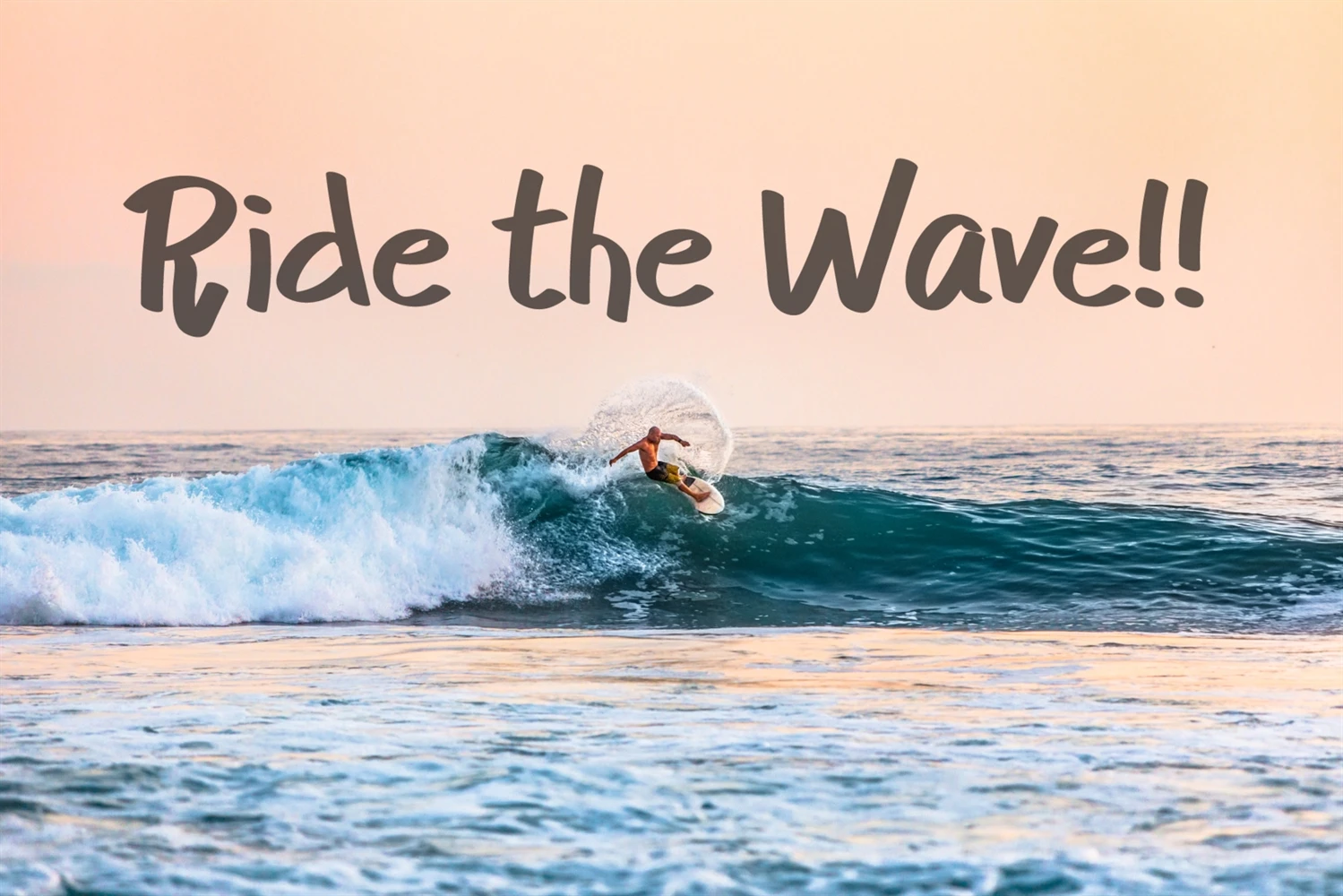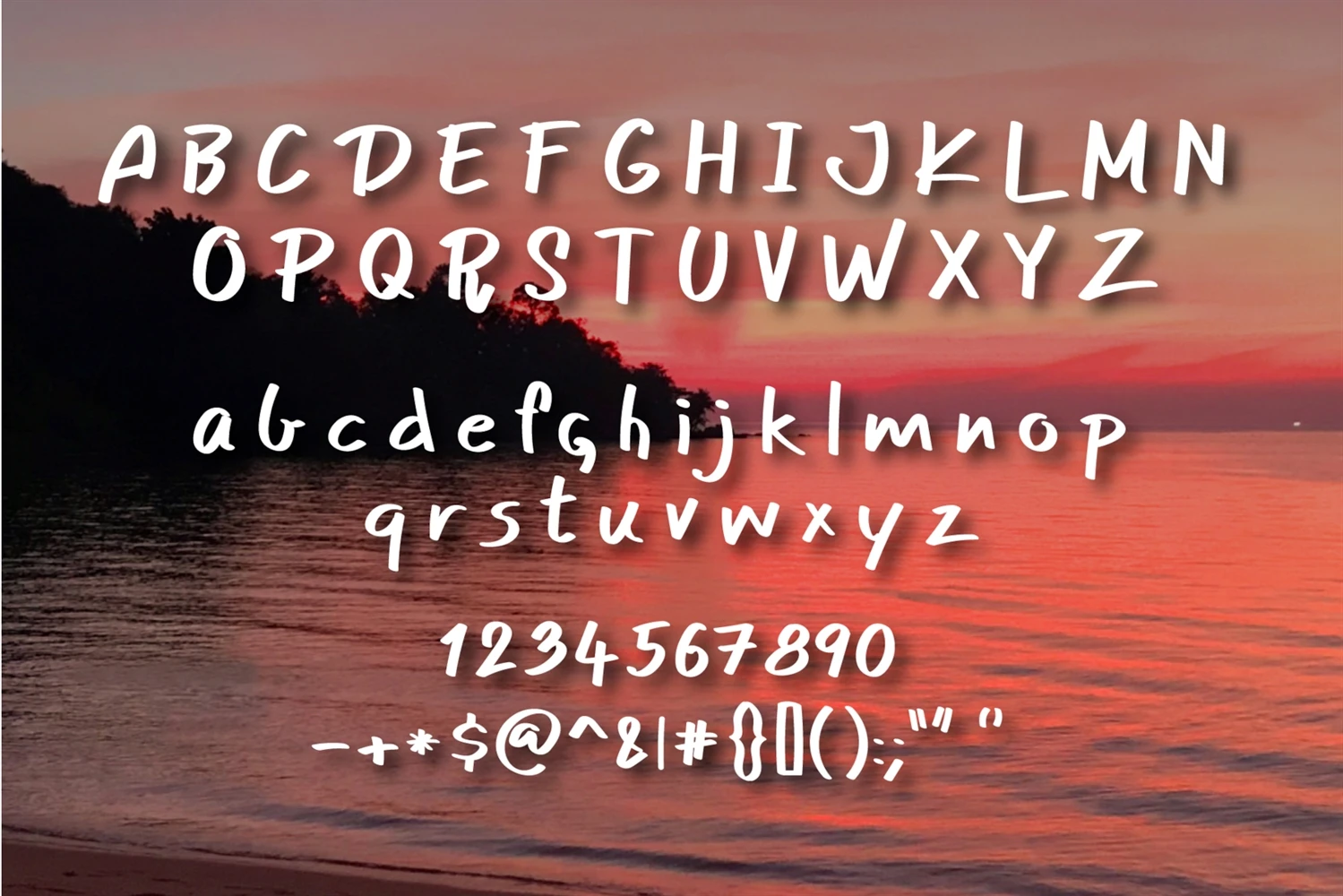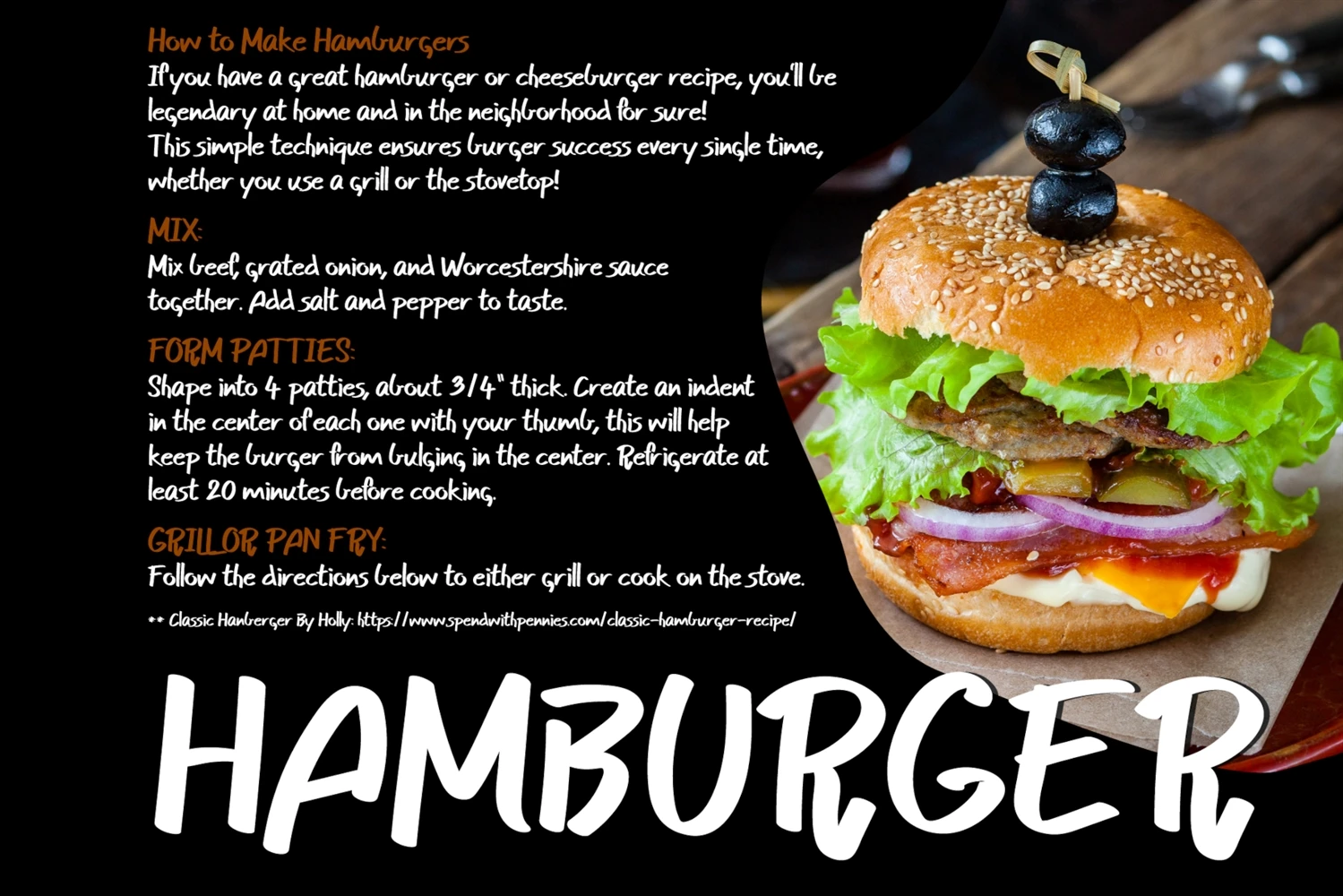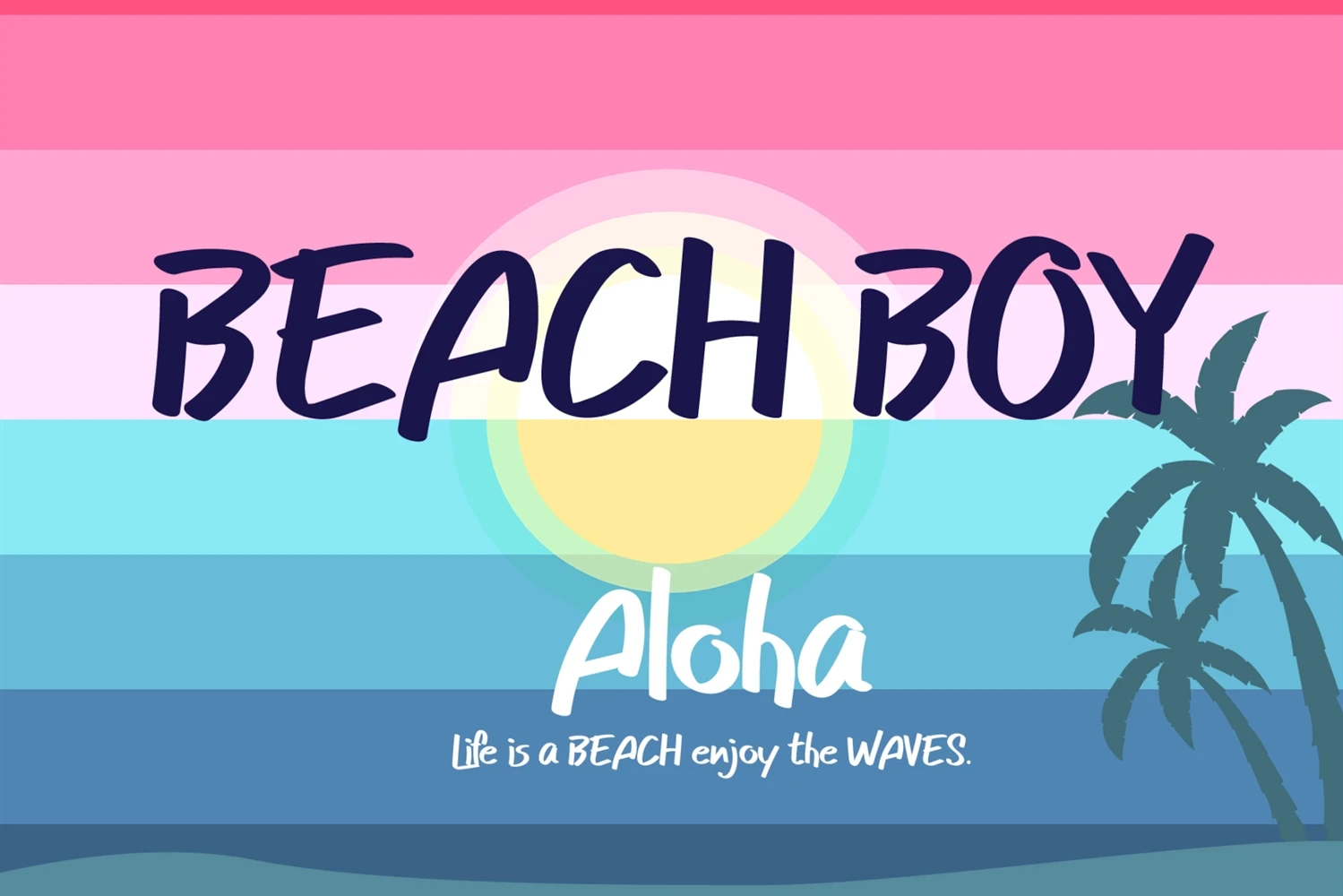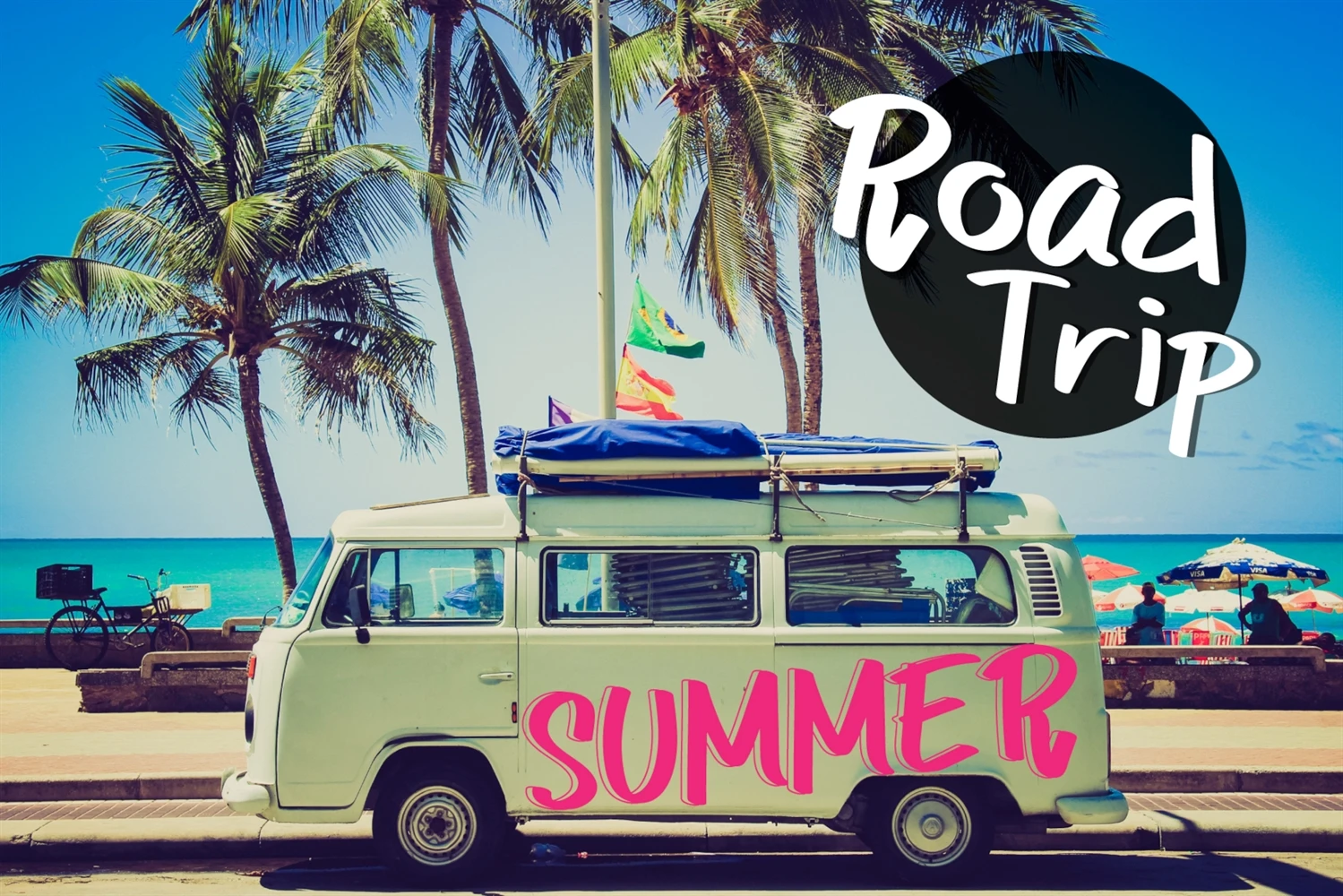
Beach Boy is a cute and simple handwritten font. Fall in love with its neat and versatile style and use it to create beautiful stationary art, eye-catching social media posts, and much more!